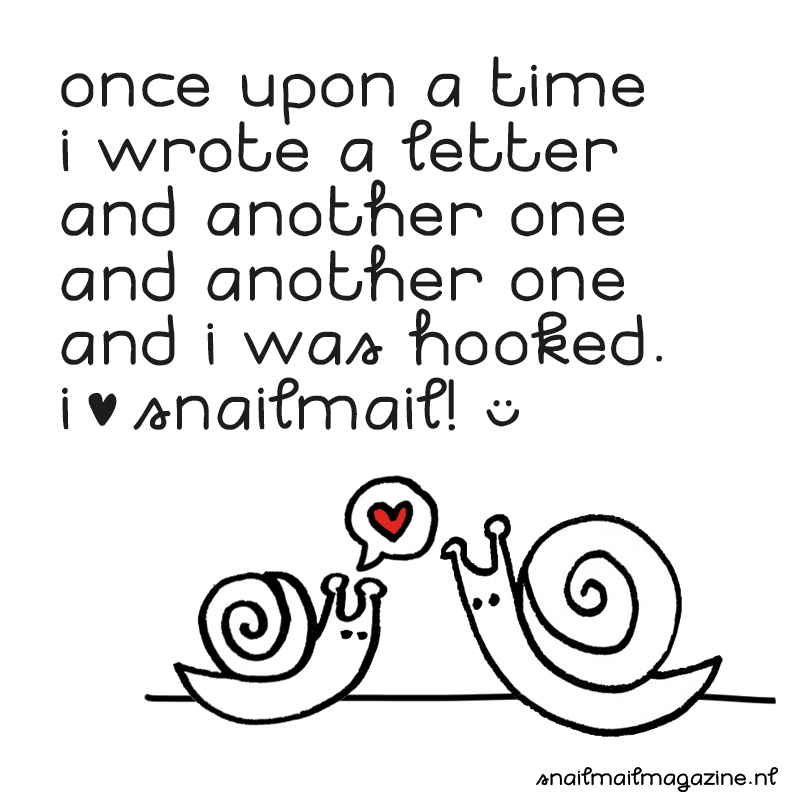
Font name: | I love snailmail |
Author: | Anke van der Meer |
Note by Anke van der Meer | |
Cute font combining 2 handwritings, traditional and regular. |